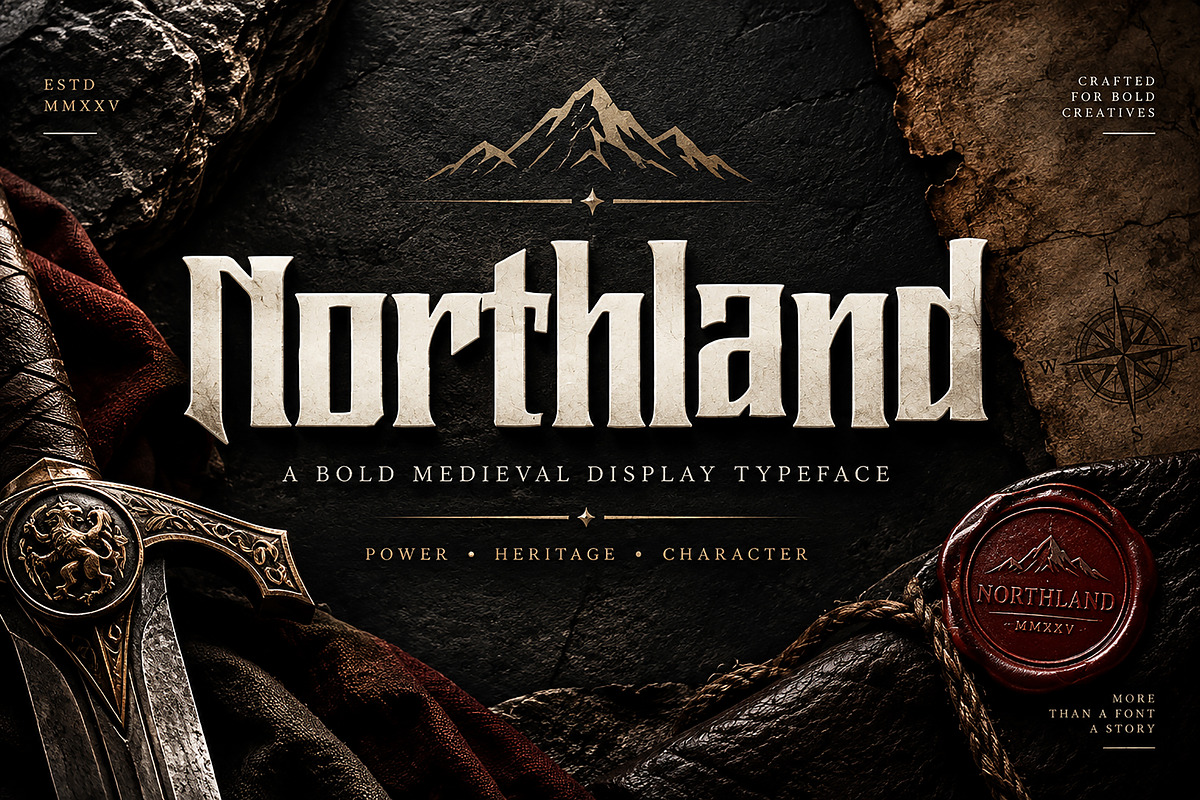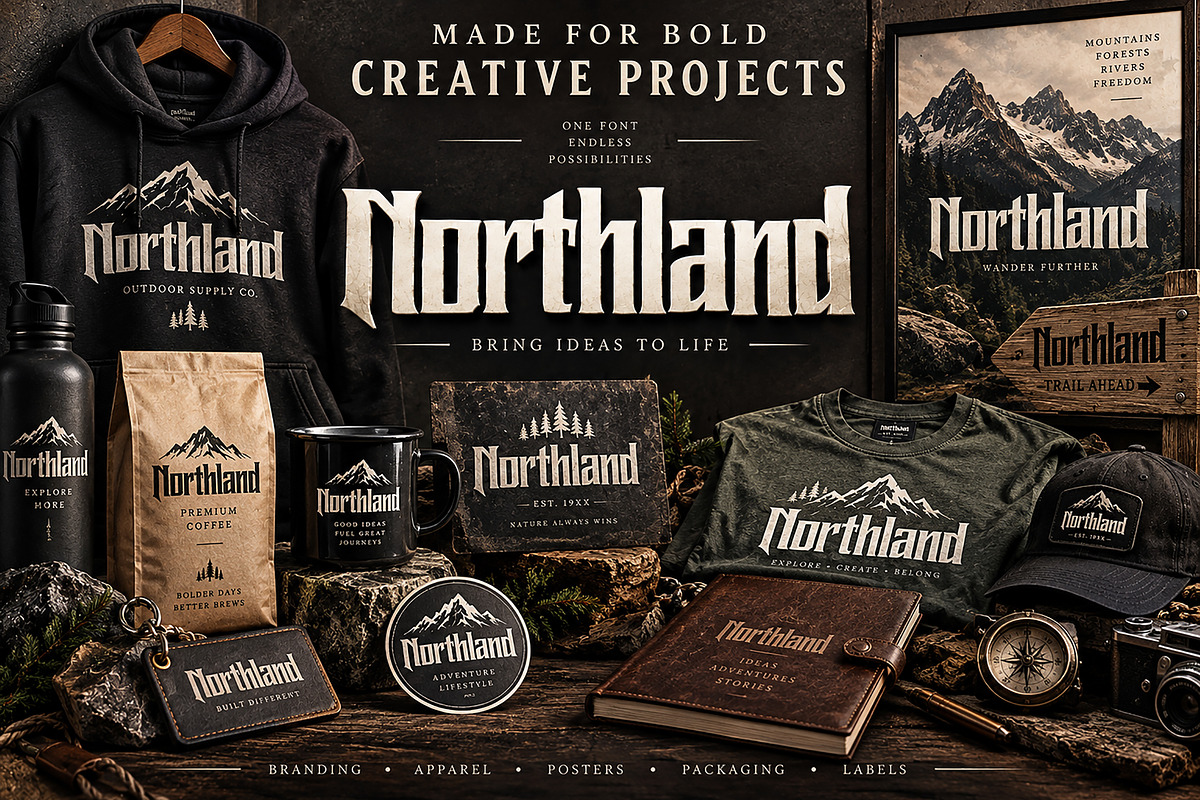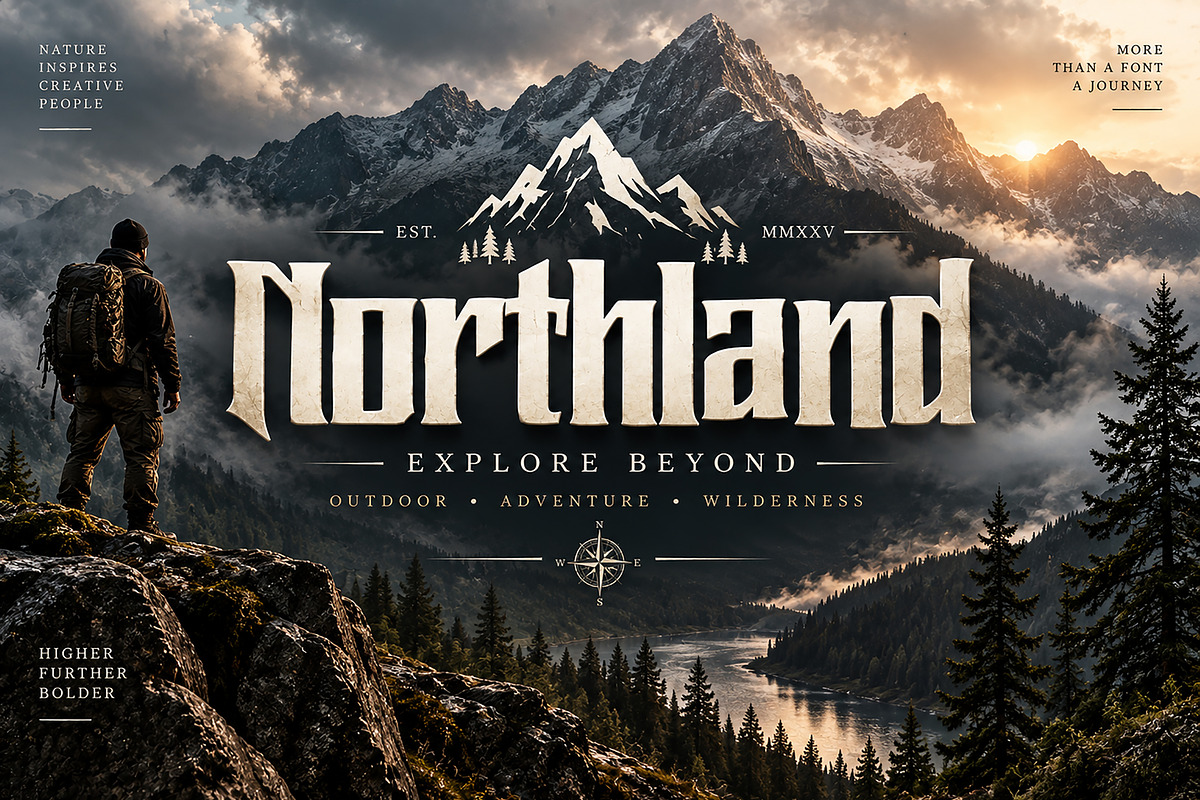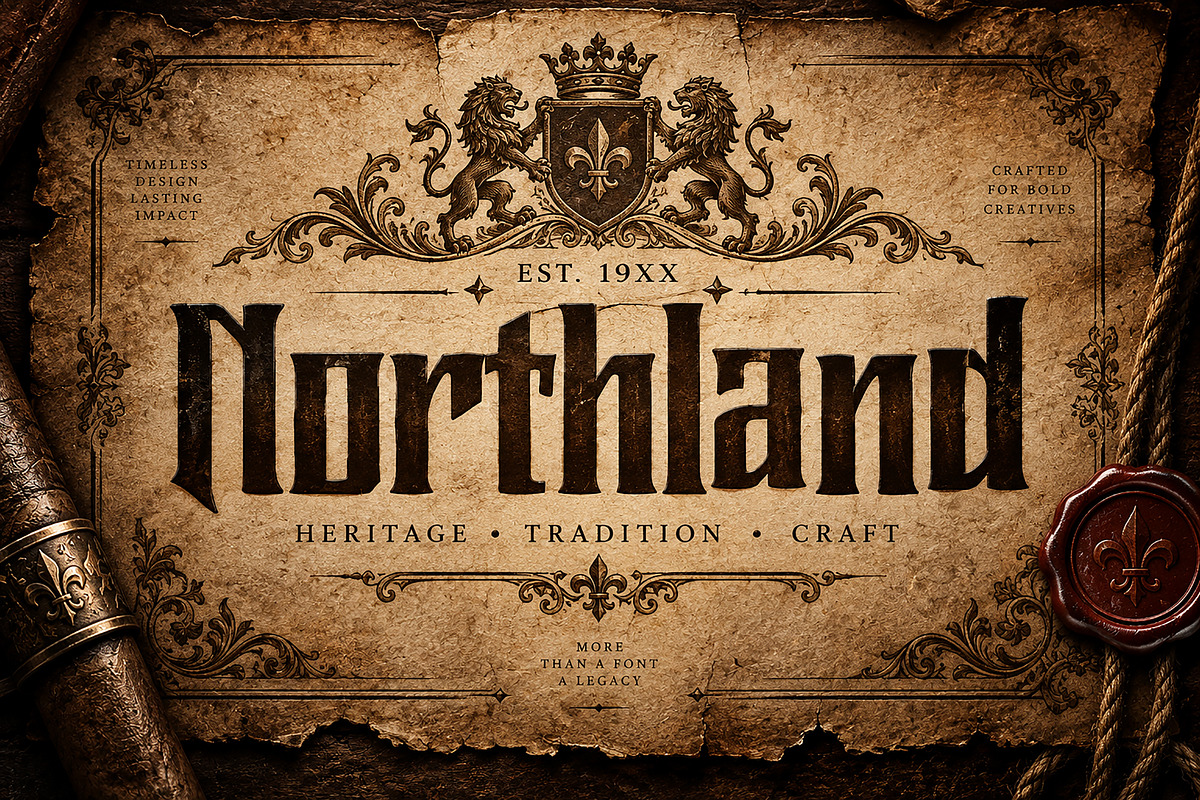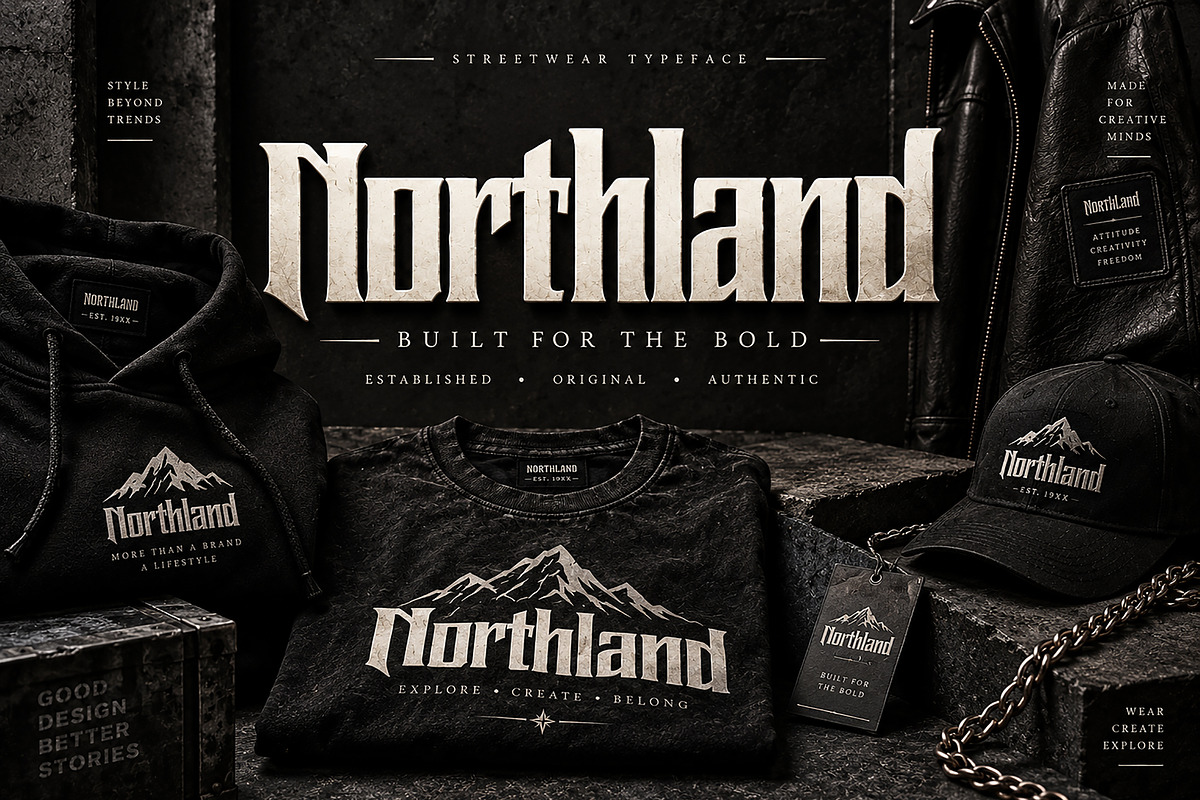
Northland
Northland — Bold Medieval Display Font
Northland is a bold and distinctive medieval-inspired display typeface created for designers who want to bring a powerful sense of heritage, adventure, and character to their creative projects.
With its sharp angular forms, dramatic proportions, and rugged Gothic personality, Northland is perfect for designs that need a strong and memorable visual presence. Its striking letterforms work especially well for branding, apparel graphics, posters, labels, packaging, merchandise, and adventure-inspired designs.
Whether you're creating an outdoor brand identity, vintage-inspired logo, streetwear collection, album artwork, poster, product label, or bold merchandise design, Northland adds an authentic handcrafted and timeless character to your work.
Logo & Branding
Streetwear & Apparel
T-Shirt & Merchandise Design
Outdoor & Adventure Branding
Posters & Headlines
Labels & Badges
Book & Album Covers
Vintage & Heritage Designs
Medieval & Gothic Artwork
Signs & Promotional Graphics
Northland is designed to make your headlines, logos, and branding instantly stand out with a bold and powerful medieval character.